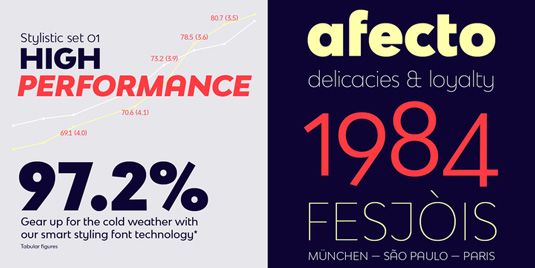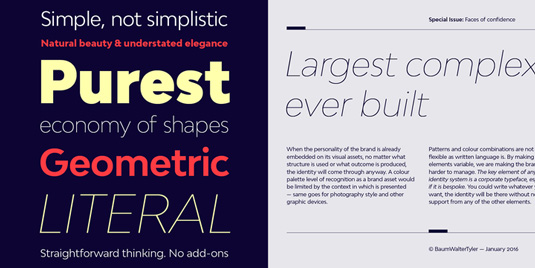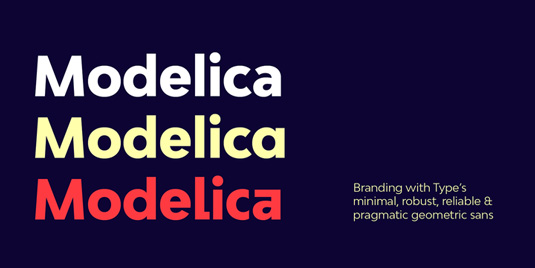
Font of the day: Bw Modelica
Every day we showcase the best fonts on the web. Today it's Bw Modelica by Alberto Romanos.
Bw Modelica by Alberto Romanos
A minimal, robust geometric sans, Bw Modelica typeface was created by designer Alberto Romanos. Its clean shapes and generous x-height make it suitable for both display and body copy purposes.